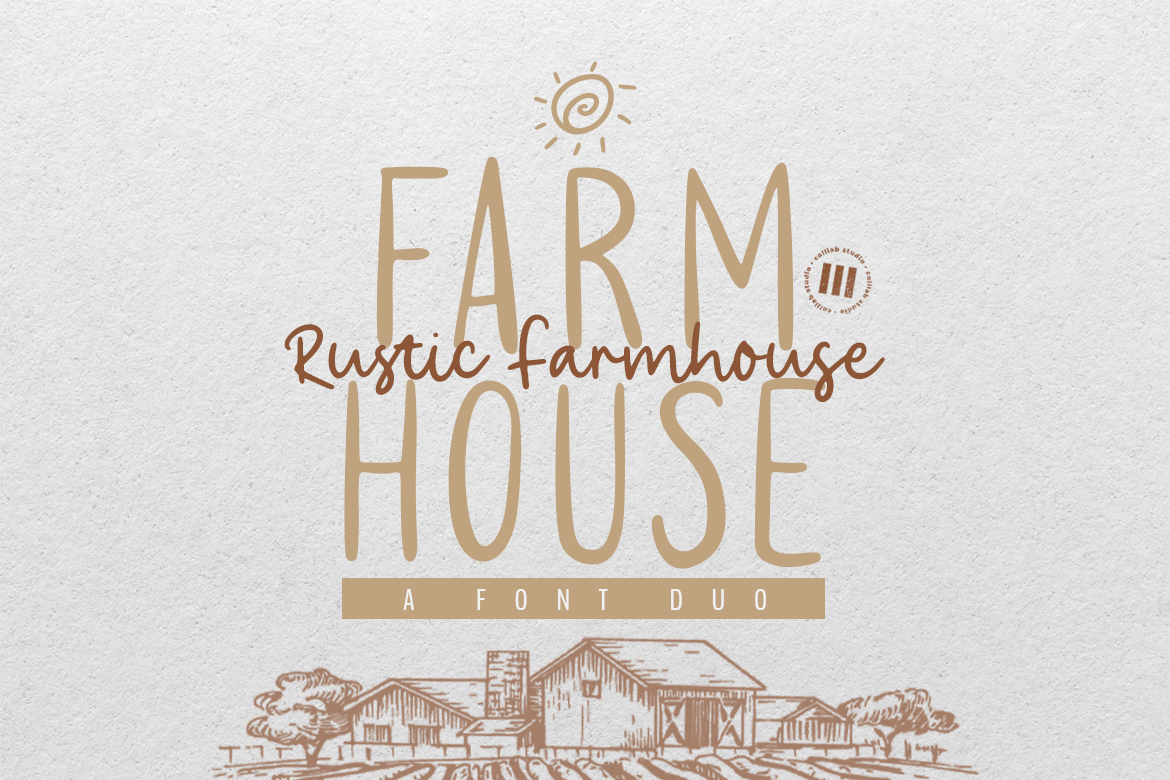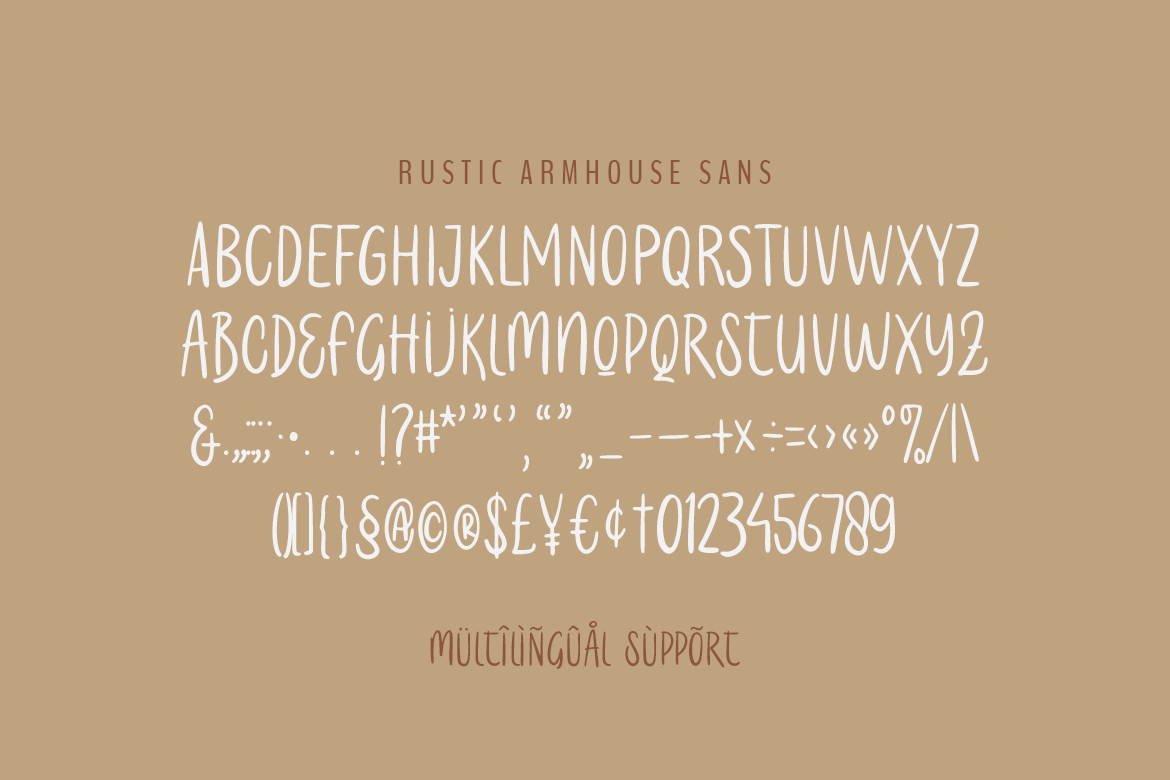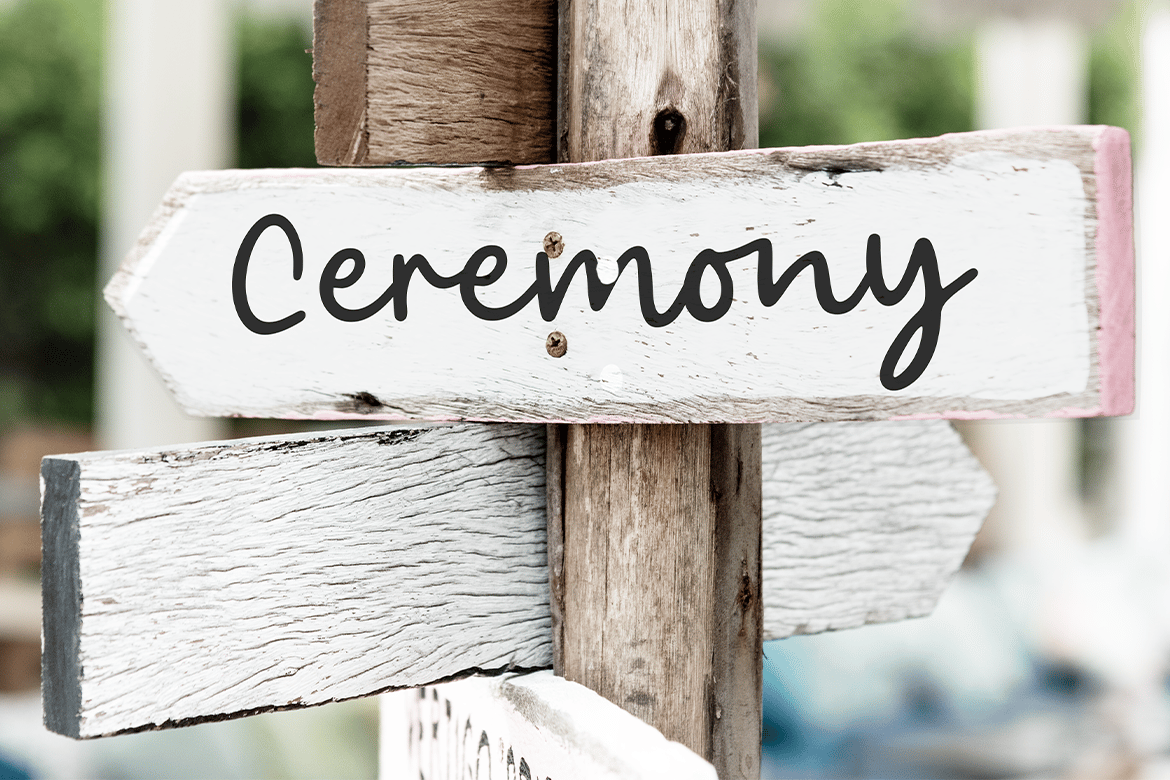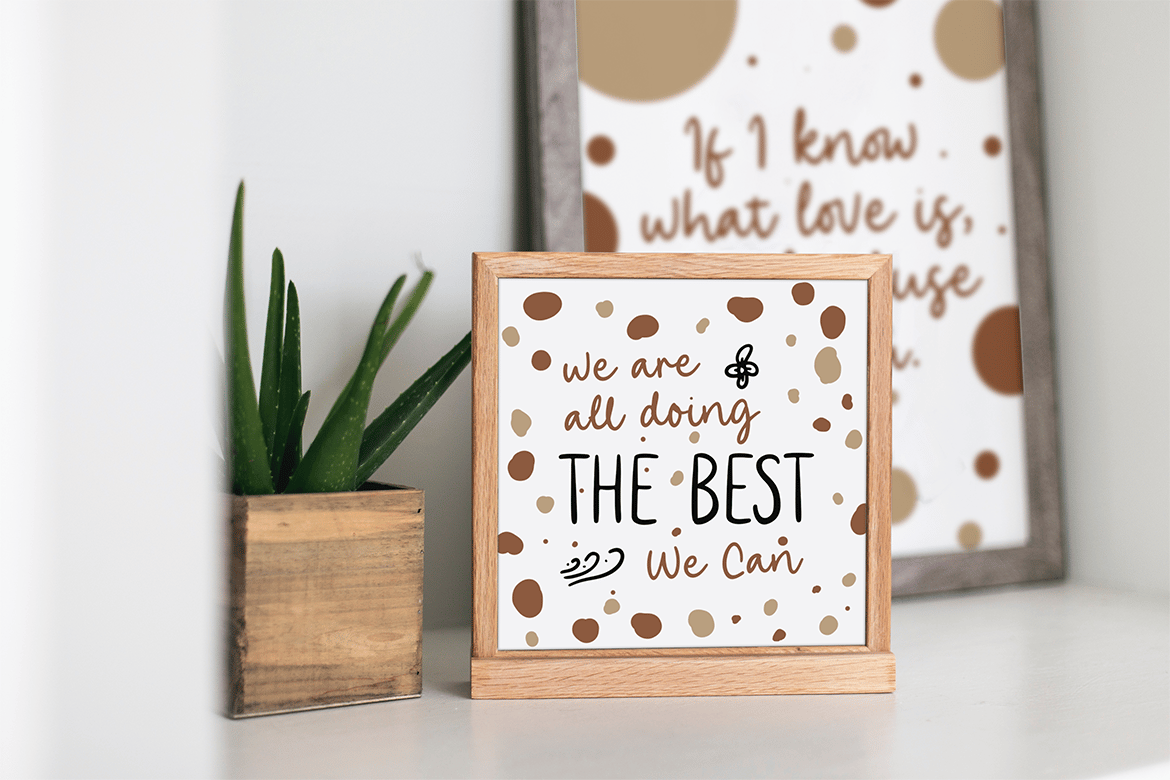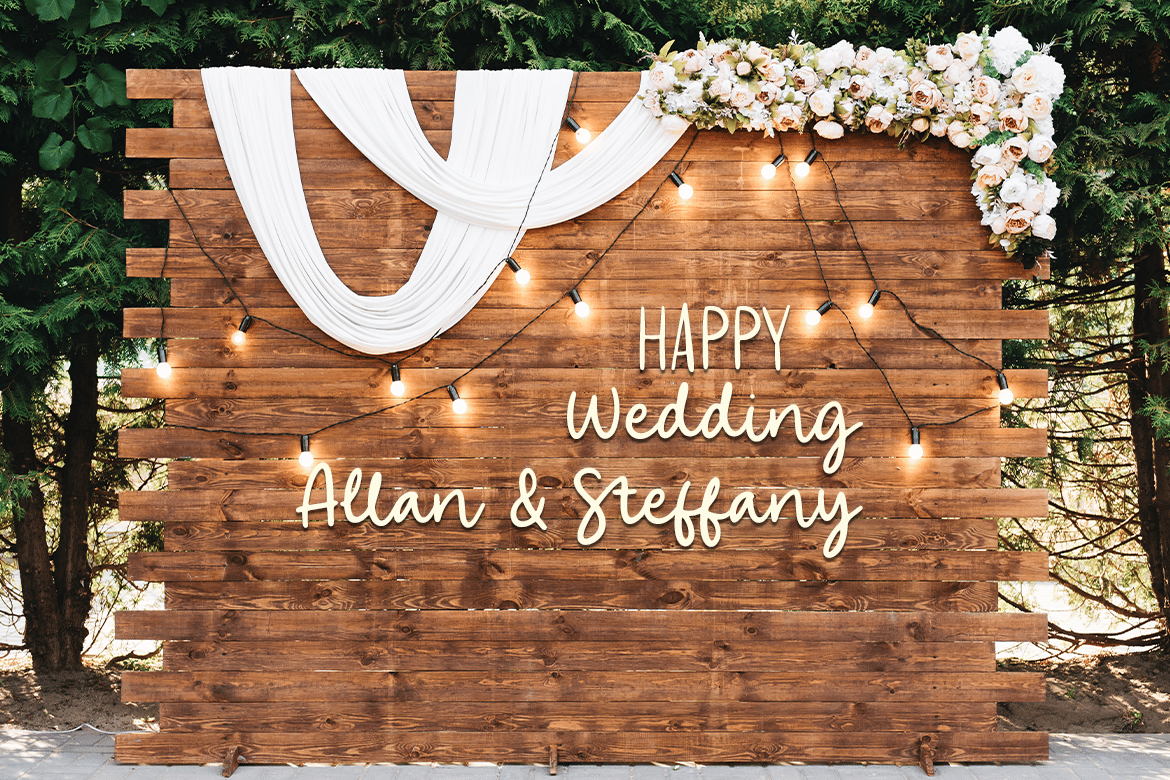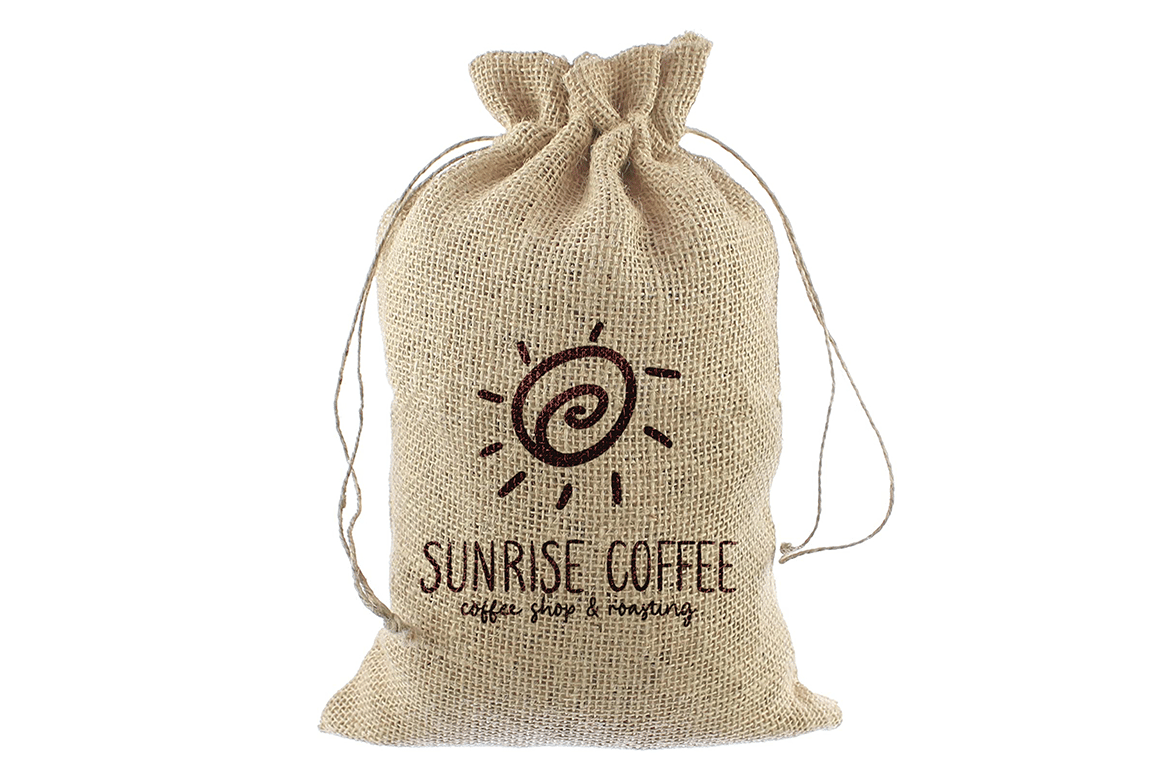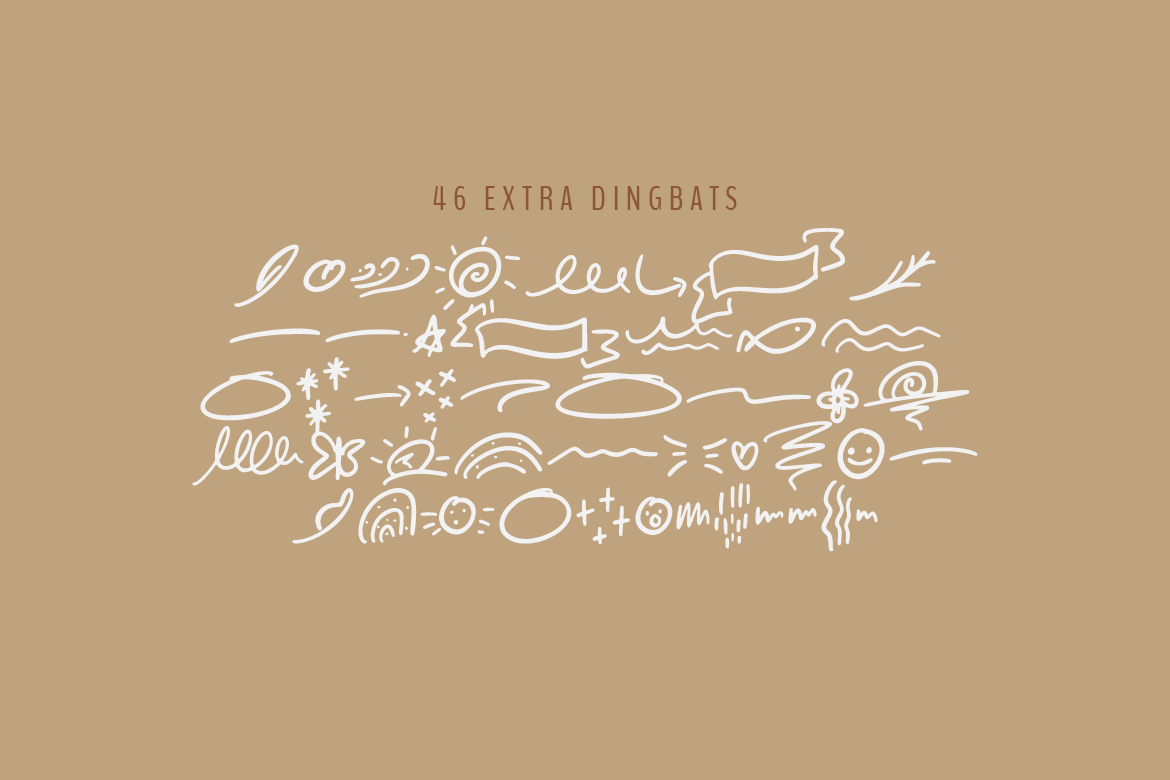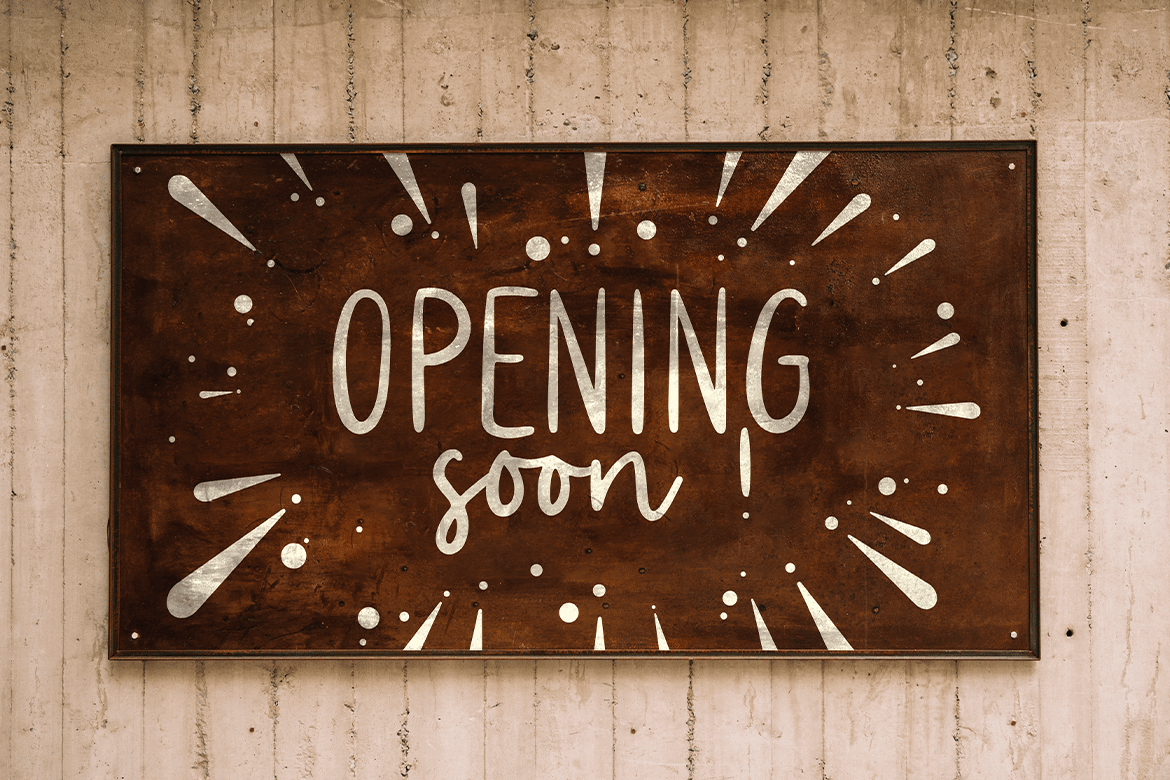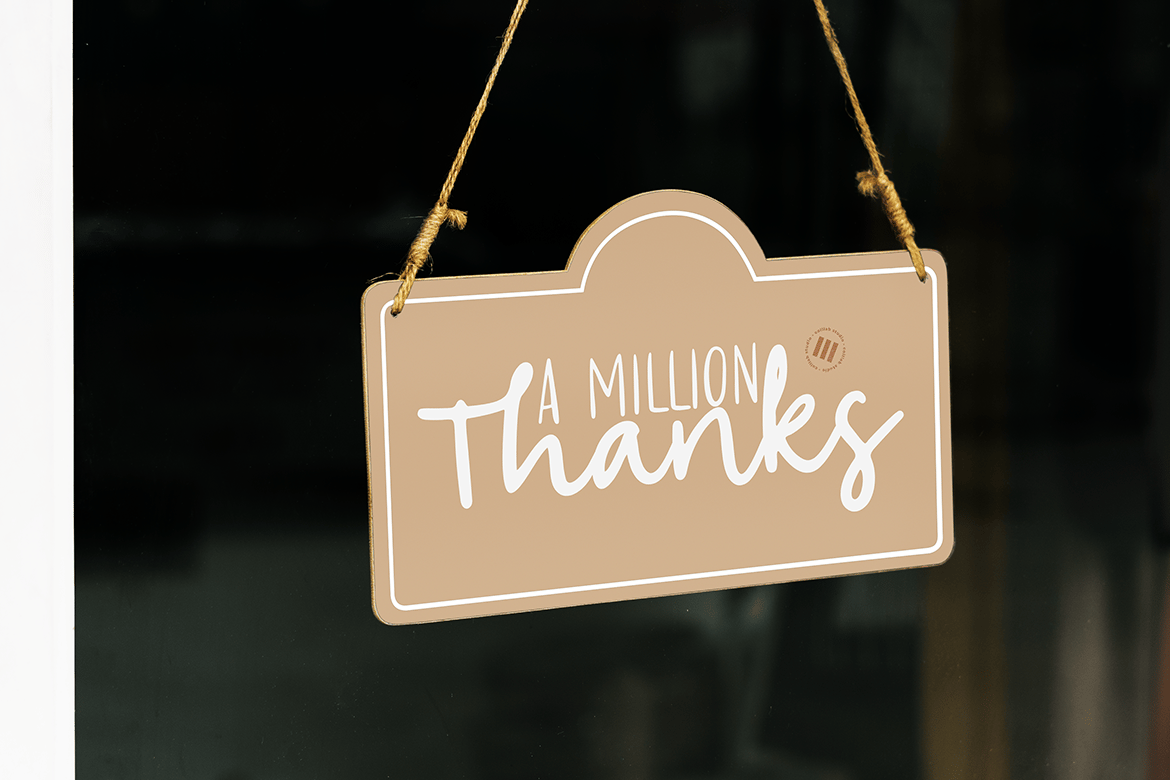
Rustic Farmhouse – An Aesthetic Font Duo
Rustic Farmhouse is rustic font duo that is suitable for design projects; rustic theme, logo, branding, poster, quotes, gorgeous wedding invitations, beautiful stationary art, eye-catching social media posts, and cute greeting cards, and any other designs.
San serif and script (Font duo)
Full upper + lowercase characters
Numbers + punctuation
Some ligatures and dingbats